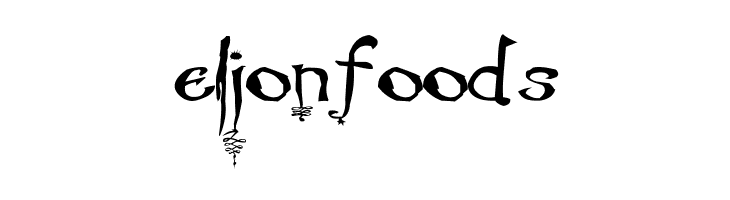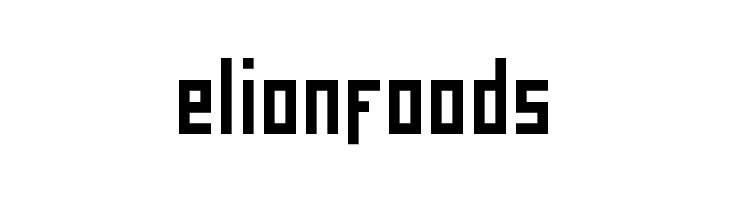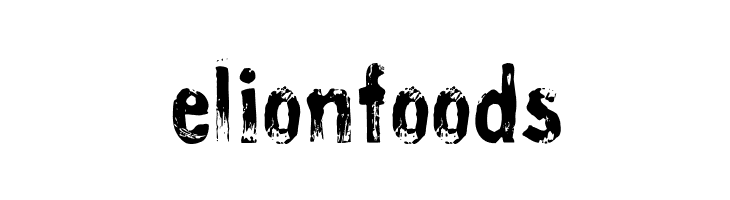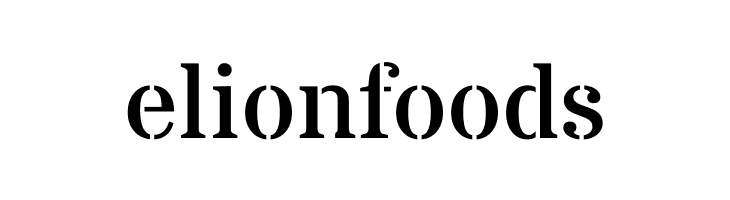
A bold, narrow font with a modern, art deco flair.
A whimsical and decorative font with celestial embellishments and swirling accents.
A bold, geometric font with a modern, digital aesthetic.
A bold, distressed font with a linocut print style.
An elegant script font with ornate, flowing letters ideal for formal and luxurious designs.
A bold, stencil-style serif font with high contrast and industrial appeal.